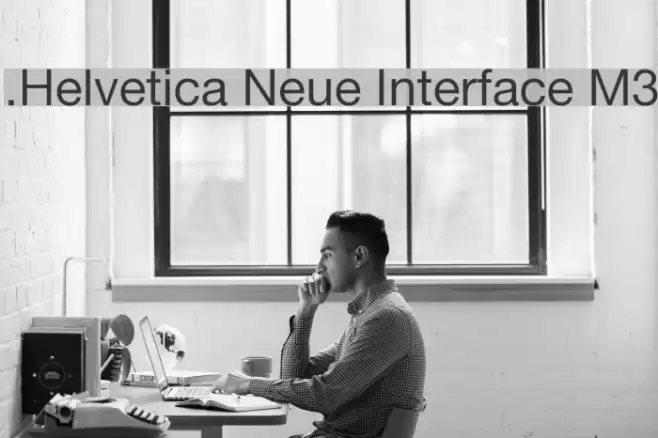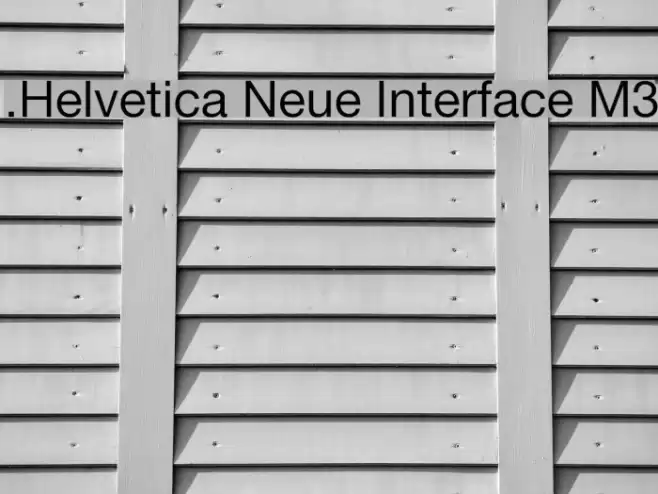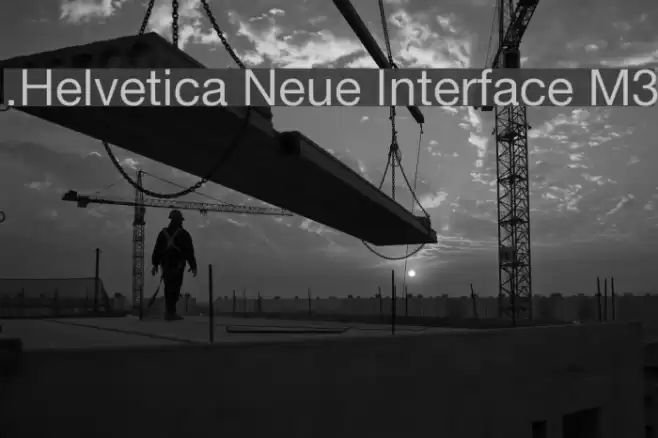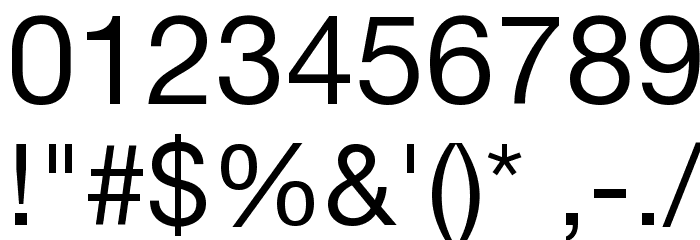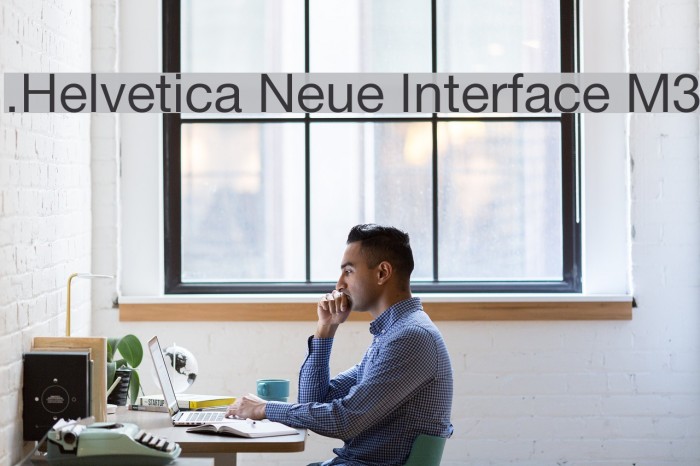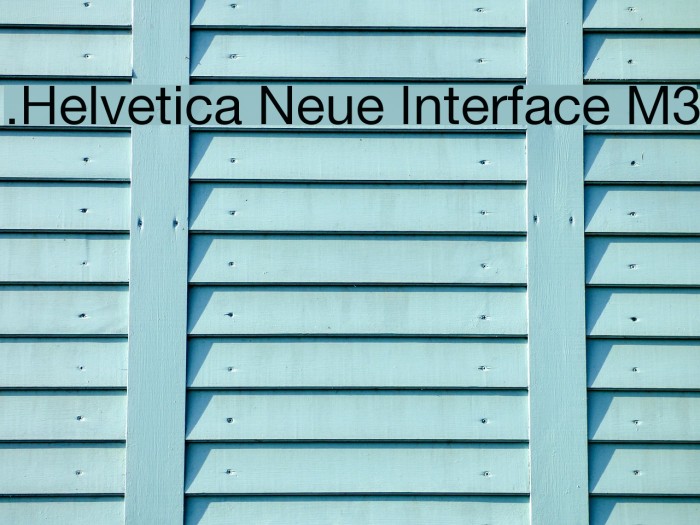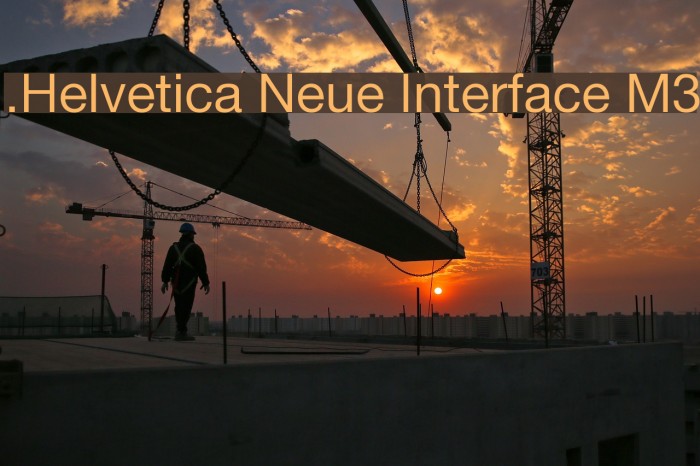
.Helvetica Neue Interface M3 Font
.Helvetica Neue Interface M3 Description
This font features a clean and modern sans-serif design, characterized by its simplicity and clarity. The letterforms are well-balanced with a uniform stroke width, providing a harmonious and professional appearance. The uppercase letters are bold and assertive, while the lowercase letters maintain a friendly and approachable look. The numerals are clear and easily distinguishable, making them suitable for various applications. Special characters are designed with precision, ensuring consistency across all glyphs. This font is versatile, suitable for both digital and print media, and works well in a variety of contexts.
A modern, clean sans-serif font with uniform stroke width and versatile applications from Uncategorized fonts.
- Proposed Projects: Ideal for corporate branding, user interfaces, signage, and editorial design.